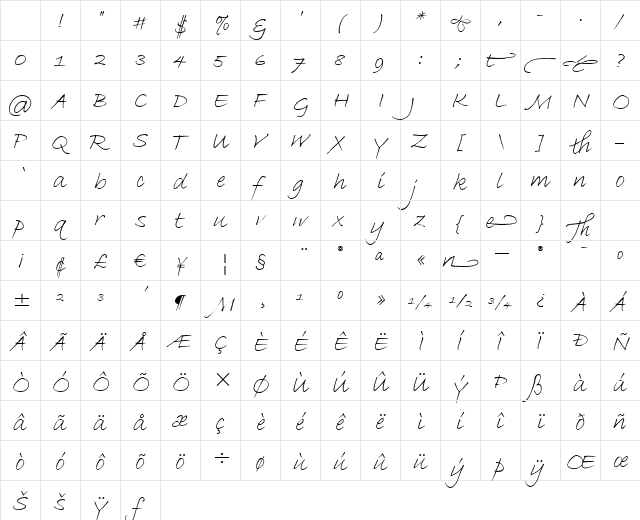
Complete BradleyHand ITC LightItalic glyph index. Displaying only characters natively supported by BradleyHand ITC LightItalic font.
BradleyHand ITC flows with the natural rhythm of handwritten lettering, making it ideal for designs that call for warmth and personal expression. Its slender proportions lend an understated elegance to any composition.
Font Pairing: Combine BradleyHand ITC with a simple geometric sans for maximum contrast - the tension between flowing curves and clean structure is a classic typographic pairing.
Pro Tip: Use BradleyHand ITC for short runs of text - names, titles, or taglines. Extended body copy in script faces tires the eye quickly.